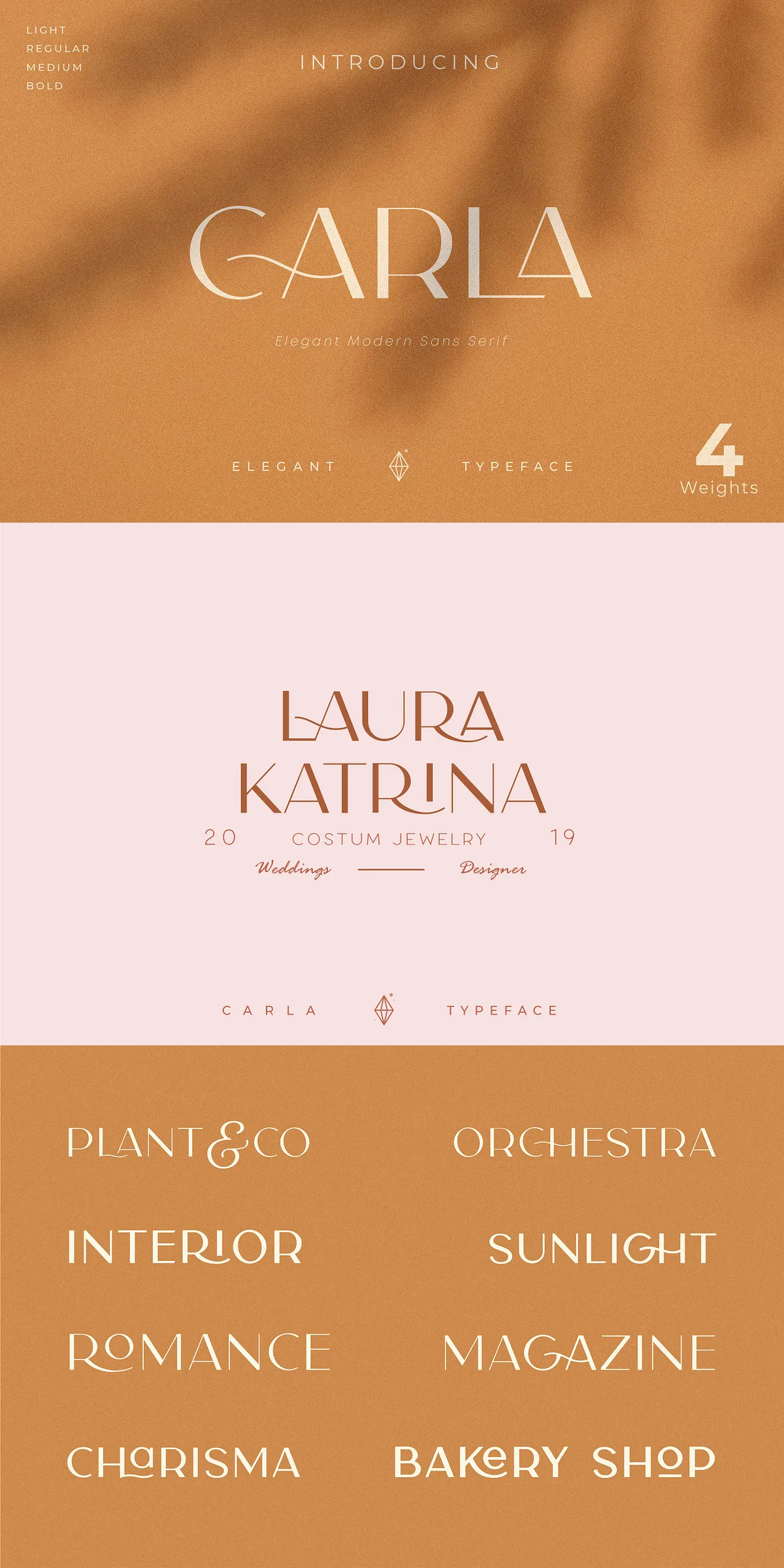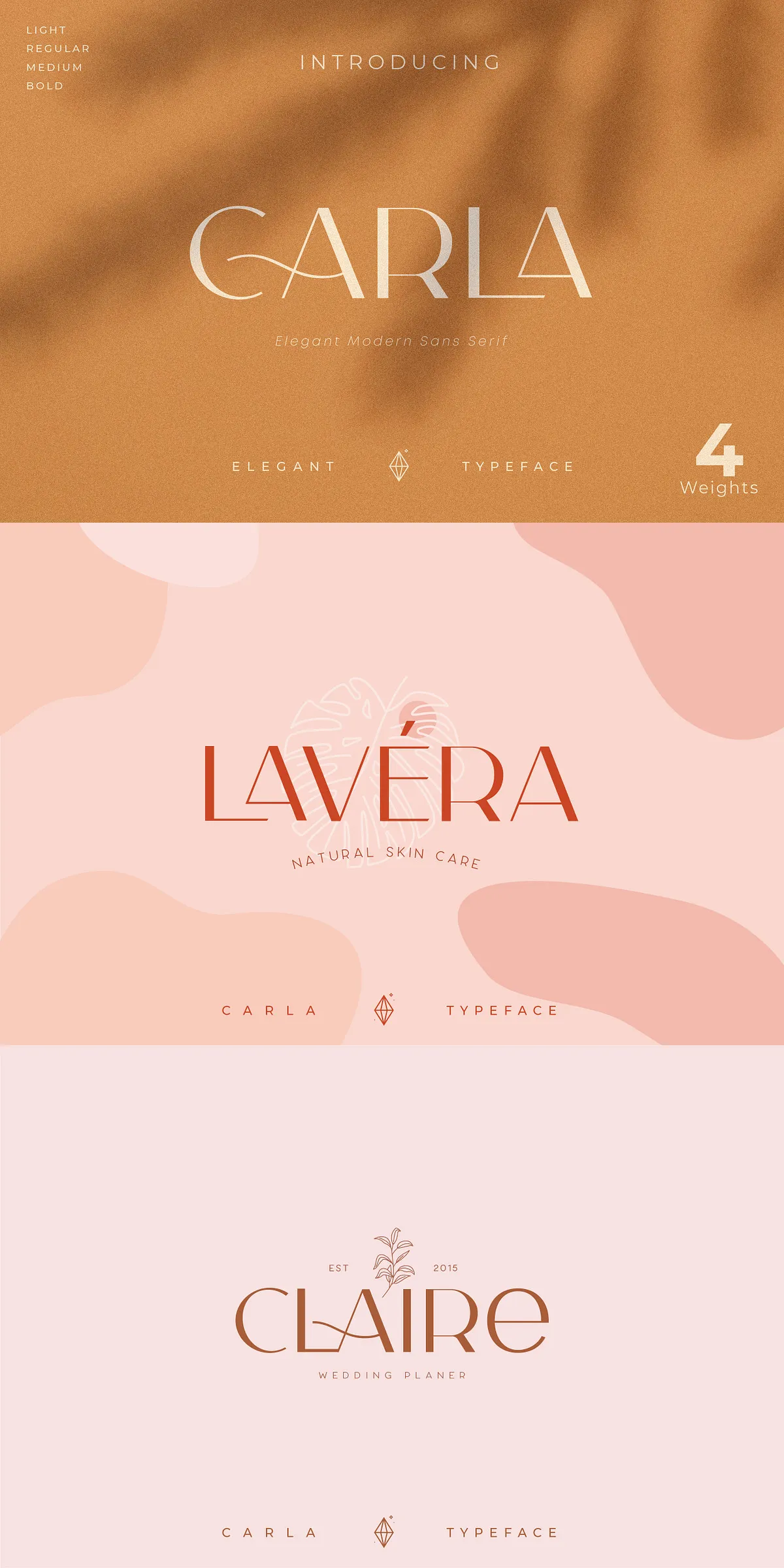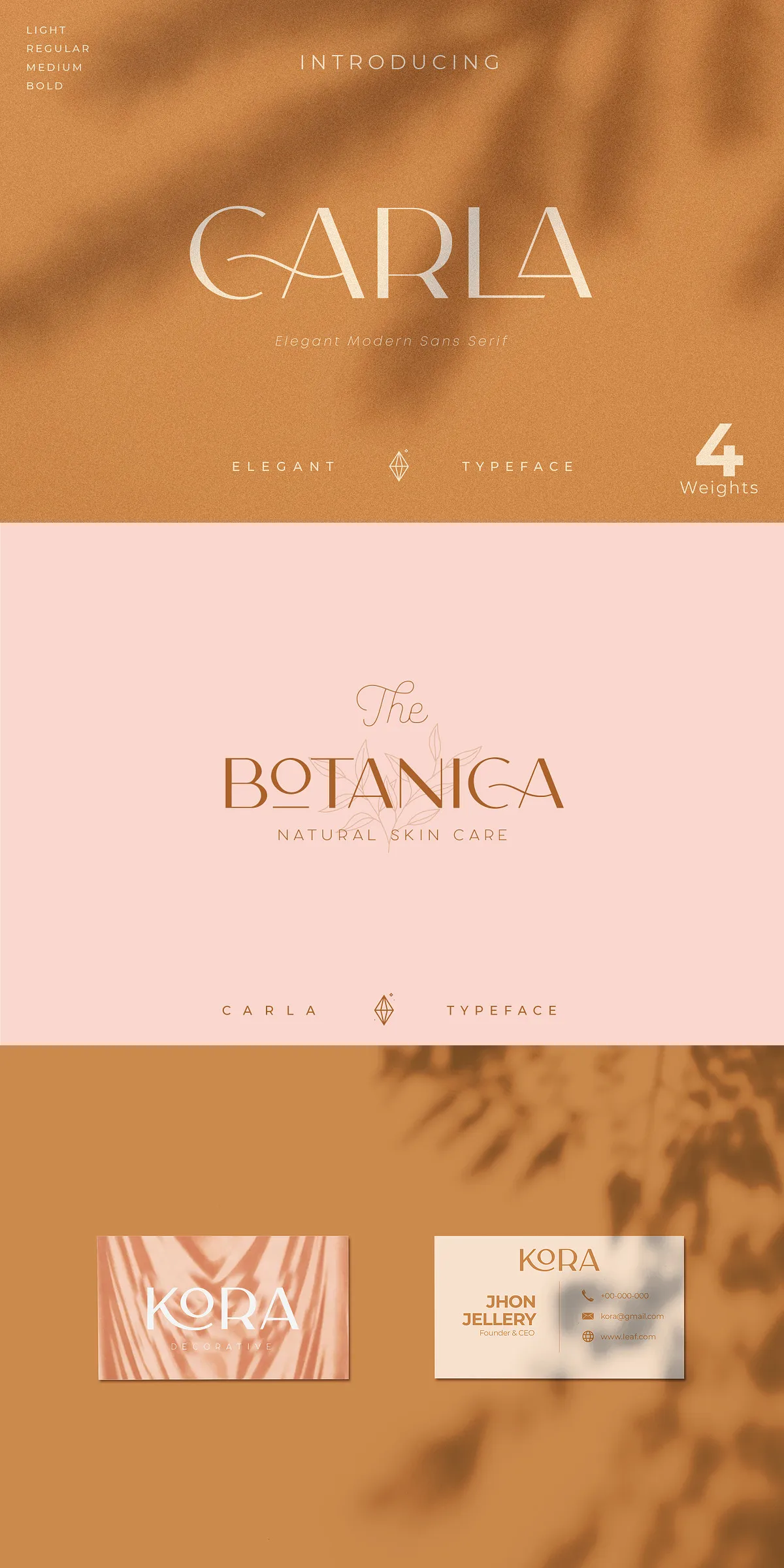
Unleash the power of refined simplicity with Carla Sans, a modern minimalist font that transforms the ordinary into the extraordinary. Designed for those who believe that elegance lies in precision, Carla Sans delivers a clean, sophisticated presence that commands attention without shouting. Whether you’re crafting a luxury brand identity, designing a high-end product label, or overlaying text on a bold background image, this font elevates every project with quiet confidence and timeless charm.
Where Simplicity Meets Sophistication: The Core of Carla Sans
Carla Sans isn’t just a typeface—it’s a philosophy. Inspired by the clean lines of 21st-century design and rooted in classical proportions, it balances minimalism with expressive detail. Every curve is intentional, every stroke refined. With four distinct weights—Light, Regular, Medium, and Bold—Carla Sans gives you the dynamic range to create visual hierarchy, contrast, and flow across your design.
Stylistic Alternates & Elegant Ligatures: Add a Touch of Artistry
While minimalist at its core, Carla Sans doesn’t skimp on personality. Its advanced OpenType features include an extensive set of stylistic alternates and beautiful ligatures that bring your text to life. Swap out standard characters for refined alternatives to add subtle uniqueness—perfect for signature logos, editorial layouts, or high-concept branding.
Full Typography Mastery: Accented Characters & Multilingual Support
Designing for a global audience? Carla Sans speaks your client’s language—literally. With full support for accented characters and multiple languages, including French, German, Spanish, Portuguese, Italian, and more, this font ensures your message is communicated with precision, regardless of region or market.
Engineered for Real-World Design Success
Carla Sans is built not just for beauty, but for performance. It maintains absolute clarity at any size—whether used as a delicate headline on a fashion editorial or as a bold tagline on a product package. No pixelation. No distortion. Just flawless typography, every time.
Professional-Grade Features You Can Trust:
- 4 Full Weights: Light, Regular, Medium, and Bold—ideal for creating visual contrast and depth in any layout.
- All Caps Design: Clean, unified uppercase text that adds authority and elegance to branding elements.
- Extensive Character Set: Includes numerals, punctuation, symbols, and special glyphs for professional-grade typography.
- OpenType Features: Access to ligatures, alternates, and stylistic sets for advanced typographic customization in Adobe Illustrator, InDesign, Figma, and more.
Where Carla Sans Shines: Creative Applications
From corporate branding to creative storytelling, Carla Sans adapts seamlessly across industries and mediums. Here’s how top designers are using it to win:
- Brand Identity & Logo Design: Create sleek, modern logos that speak of trust, clarity, and innovation.
- Clothing & Fashion Labeling: Add premium elegance to apparel tags, packaging, and website headers.
- Product Packaging & Retail Design: Use its minimalist charm to convey luxury in cosmetic, beverage, and specialty goods.
- Magazine & Editorial Headlines: Craft standout covers and section titles with a clean, modern edge.
- Web & App Typography: Pair it with contrasting fonts for UI elements or use it in banners, overlays, and hero sections to make a statement.
- Text Overlays on Backgrounds: Its legibility and elegance shine even on complex images, making it perfect for social media posts, banners, and video graphics.